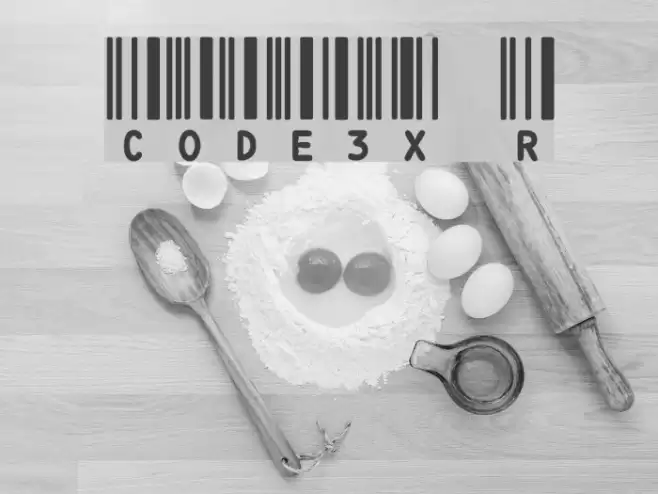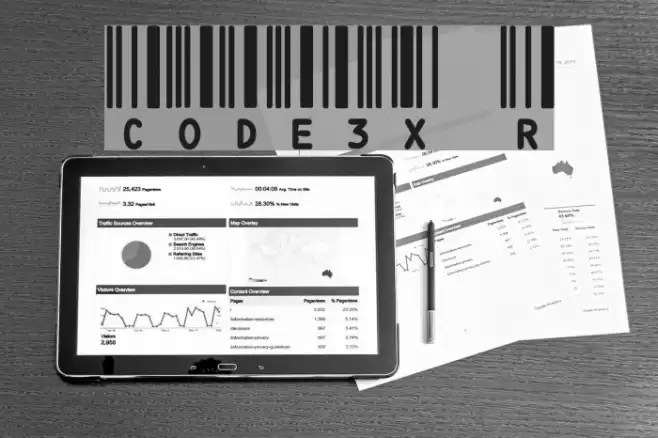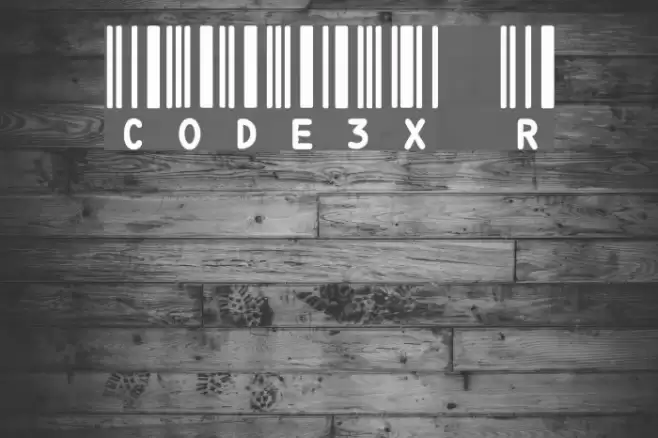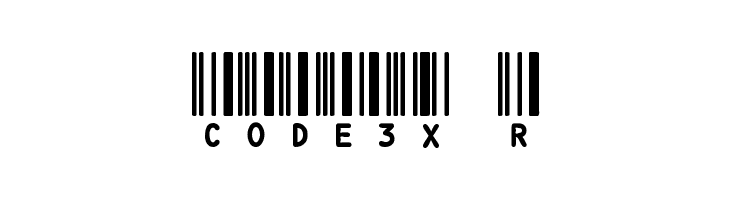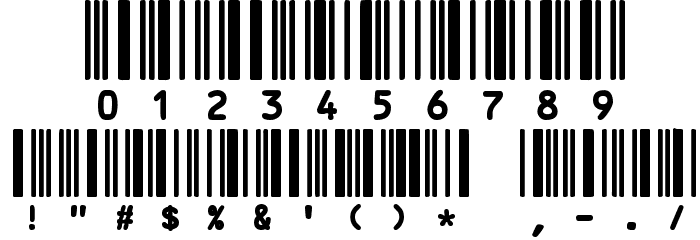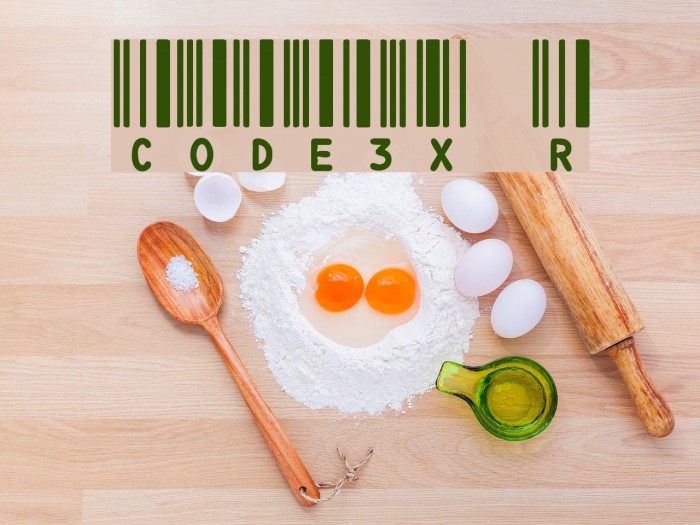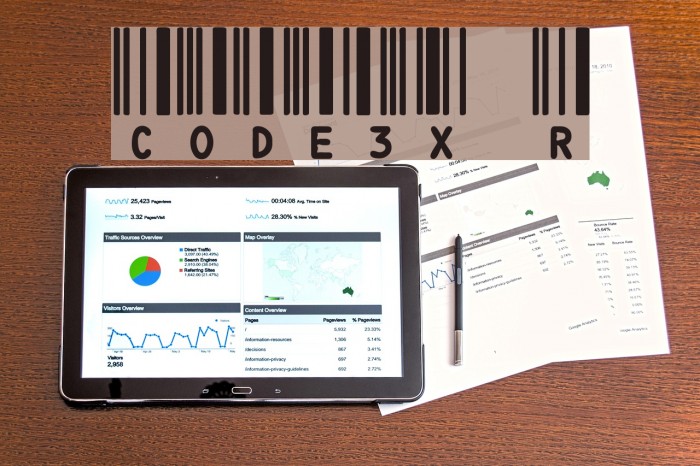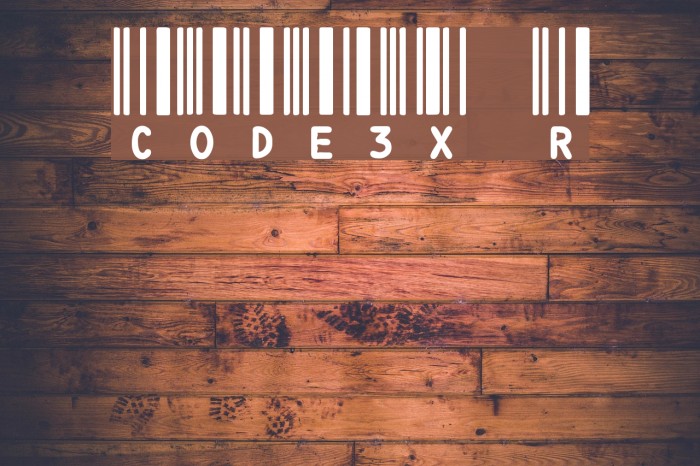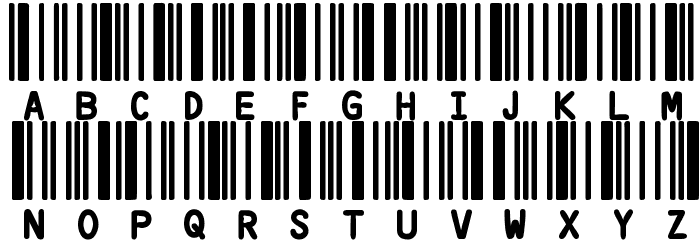
CODE3X R Font
CODE3X R Description
This font is a barcode style, characterized by its vertical lines of varying thicknesses that represent different characters. It is designed to mimic the appearance of traditional barcodes used in retail and logistics. The font includes uppercase and lowercase letters, numbers, and a selection of special characters. Each character is represented by a unique pattern of bars, making it ideal for creating a visually striking and modern aesthetic. The font's design is both functional and decorative, suitable for projects that require a futuristic or industrial look.
A barcode-style font with vertical lines representing characters from Dingbats fonts.
- Proposed Projects: Ideal for product packaging, futuristic designs, tech-themed projects, and branding that requires a modern, industrial look.
- Use Case: Logos, Branding, Packaging